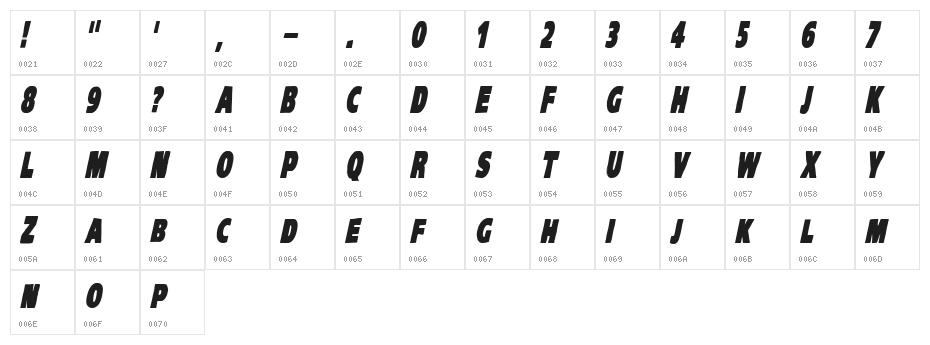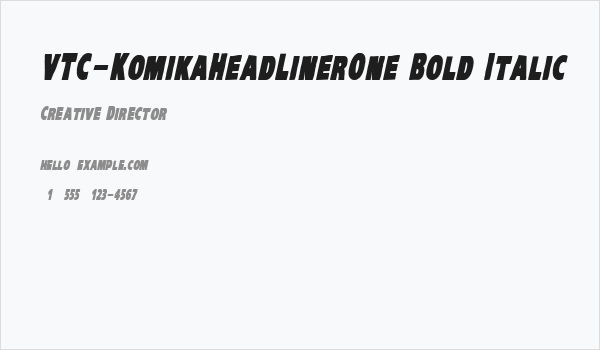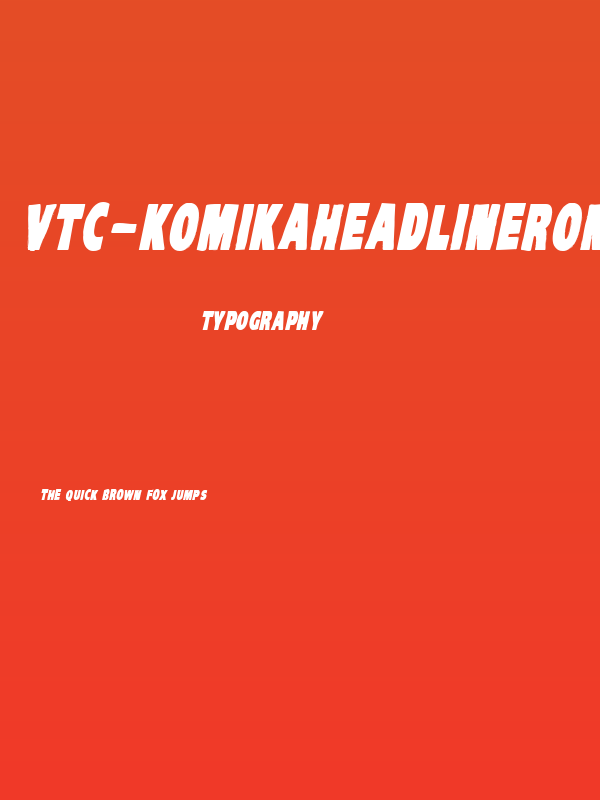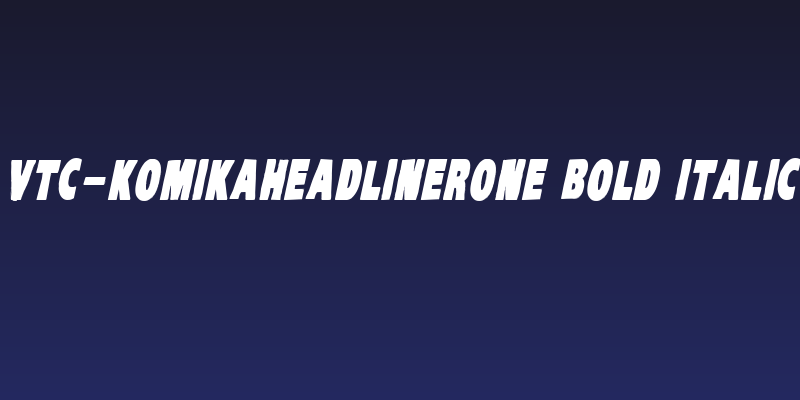
VTC-KomikaHeadLinerOne Bold Italic Font
VTC-KomikaHeadLinerOne Bold Italic Description
This bold and italic font features a strong, dynamic presence with its thick, slanted characters. The uppercase letters are robust and impactful, making them ideal for attention-grabbing headlines. The numbers and special characters maintain the same boldness, ensuring consistency across all text elements. The font's style is reminiscent of comic book lettering, adding a playful yet assertive tone. Its slanted design gives it a sense of motion and energy, making it suitable for projects that require a lively and engaging typeface.
| Proposed Projects | Ideal for comic books, posters, advertisements, and any project needing a bold, energetic typeface. |